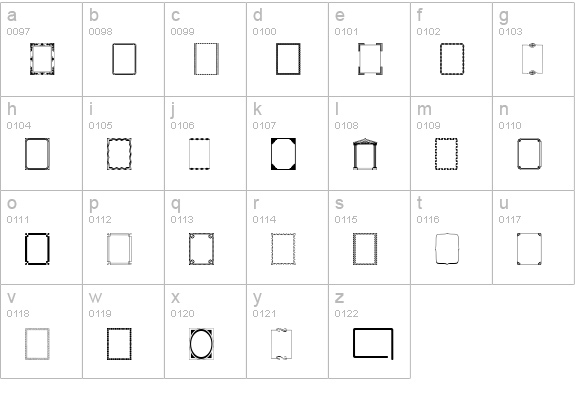
DesignerFrames Font Details
Introducing DesignerFrames font - a stylish and modern typeface that exudes elegance and sophistication. This unique font features intricate details and ornate embellishments, making it perfect for adding a touch of luxury to your designs. With its sleek lines and graceful curves, DesignerFrames font is ideal for creating eye-catching headlines, logos, and branding materials. What sets DesignerFrames font apart is that it is available for free download at FontsMarket.com. This means you can easily access this stunning font and use it in your projects without any cost. Whether you're working on a personal project or a professional design, DesignerFrames font will elevate your work to the next level with its timeless appeal and versatility. Don't miss out on the opportunity to enhance your designs with DesignerFrames font. Download it for free today at FontsMarket.com and start creating stunning visuals that will captivate your audience.